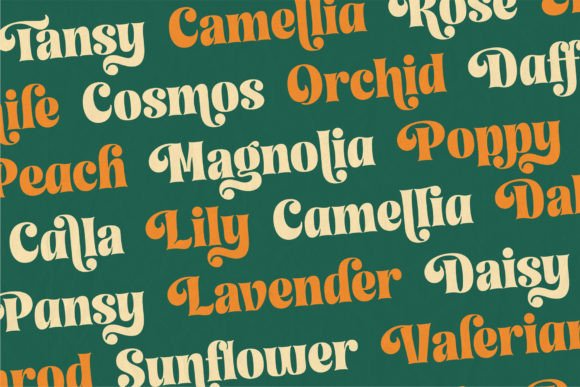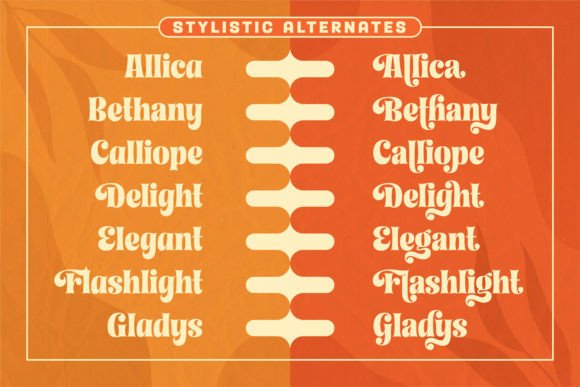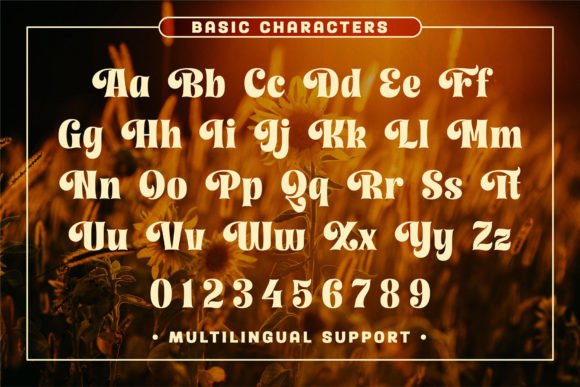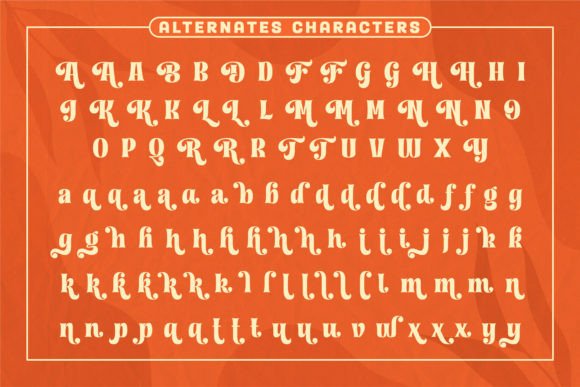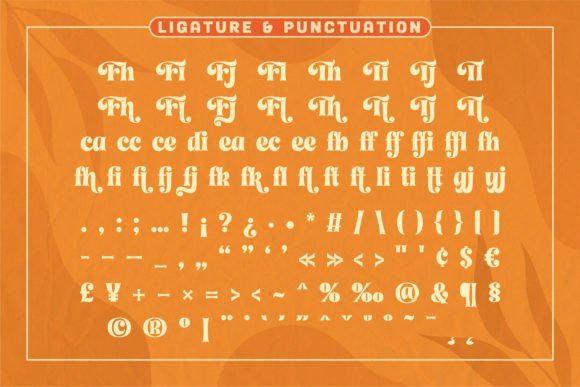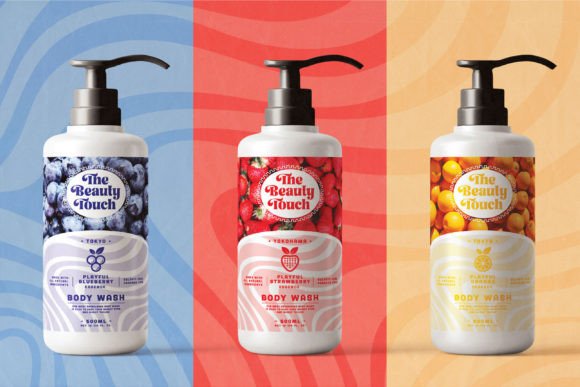
Introducing Feeling Things Font: A Modern Serif with Retro Vibes
Are you a designer or crafter looking for a unique and stylish font to elevate your creative projects? Look no further than Feeling Things Font, a modern serif font with retro vibes that’s perfect for a wide range of applications. Inspired by the iconic typography designs of the 1970s, Feeling Things is a versatile and eye-catching font that’s sure to make your work stand out.
The Inspiration Behind Feeling Things Font
The 1970s was a decade known for its bold and playful design aesthetic, with typography playing a starring role in many iconic designs. Feeling Things Font draws inspiration from this era, capturing the essence of retro typography while infusing it with a modern twist. The result is a font that’s both nostalgic and fresh, perfect for designers and crafters who want to add a touch of vintage flair to their work.
Key Features of Feeling Things Font
So what makes Feeling Things Font so special? Here are just a few of its key features:
- Modern serif design: Feeling Things Font boasts a sleek and sophisticated serif design that’s perfect for a wide range of applications.
- Retro vibes: Inspired by the iconic typography designs of the 1970s, Feeling Things Font is sure to evoke a sense of nostalgia and playfulness.
- Versatile: Whether you’re designing a logo, invitation, label, or magazine, Feeling Things Font is perfectly suited for a wide range of creative projects.
- High-quality: With its clear and crisp lines, Feeling Things Font is perfect for both digital and print applications.
So what can you use Feeling Things Font for? The possibilities are endless! Here are just a few ideas to get you started:
- Logos: Create a unique and memorable logo for your business or brand with Feeling Things Font.
- Invitations: Add a touch of elegance and sophistication to your invitations with Feeling Things Font.
- Labels: Create eye-catching labels for your products or packaging with Feeling Things Font.
- Magazines and books: Use Feeling Things Font as a headline or body font for your magazine or book.
- Greeting and wedding cards: Add a touch of personality and style to your greeting and wedding cards with Feeling Things Font.
- Packaging: Create eye-catching packaging for your products with Feeling Things Font.
- Fashion and beauty: Use Feeling Things Font to create stylish and eye-catching branding for your fashion or beauty business.
- Stationery: Create personalized and stylish stationery with Feeling Things Font.
- Novels and fiction: Use Feeling Things Font as a headline or body font for your novel or fiction book.
Why Choose Feeling Things Font?
So why should you choose Feeling Things Font for your next creative project? Here are just a few reasons:
- Unique and stylish: Feeling Things Font is a one-of-a-kind font that’s sure to make your work stand out.
- Versatile: With its wide range of applications, Feeling Things Font is perfect for designers and crafters who want a font that can do it all.
- High-quality: With its clear and crisp lines, Feeling Things Font is perfect for both digital and print applications.